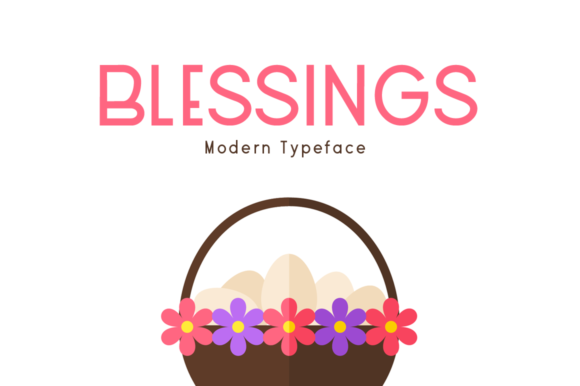
The Elegance of Blessings Font: A Designer’s Delight
I still remember the design project that led me to discover the stunning Blessings font. I was working on a luxury brand’s visual identity, and my client requested a elegant, high-end look that exuded sophistication. As I scrolled through font libraries, I stumbled upon Blessings, and it instantly caught my eye. Its unique blend of traditional and modern elements made it the perfect fit for the project. In this article, I’ll share my experience with Blessings font, its features, and how to make the most of it in your designs.
An Honest Review of Blessings Font
- ✨ Elegant and refined design with a distinct character
- ✅ Well-balanced Latin details with subtle contrasts
- 💯 Maximum versatility for various design projects
- 🎨 Beautiful OpenType features and glyphs for added creativity
While Blessings font is exceptional, there are a few minor considerations to keep in mind:
- 🤔 Limited availability of certain language scripts
- ⚠️ Some users may find the font too ornate for casual designs
The Story Behind Blessings Font
Blessings font was designed with the intention of blending traditional influences with modern aesthetics. The designer aimed to create a font that exudes elegance and sophistication while maintaining a subtle, refined character. The result is a versatile font that can be used in various design projects, from luxury branding to editorial designs.
| Font Name | Blessings Font |
| Author | Seemly Fonts |
| What makes Blessings font unique? | Blessings font stands out due to its distinct blend of traditional and modern elements, making it perfect for designs that require elegance and sophistication. |
| Is Blessings font suitable for body text? | While Blessings font is elegant, it’s primarily designed for display purposes. For body text, consider using a font with better readability. |